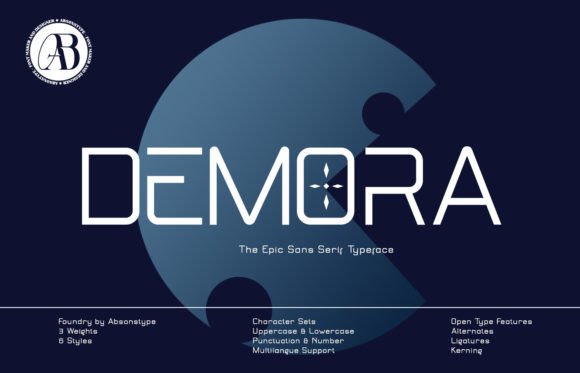
Feast your eyes upon Demora, a sans serif typeface that embodies the essence of modern aesthetics. Its sleek lines and crisp edges dance across the digital canvas with surgical precision, bringing to life a font that is both visually stunning and effortlessly readable.
Immerse yourself in a realm of science fiction and technological wonders with Demora. Its futuristic undertones evoke a sense of innovation and progress, perfectly capturing the essence of cutting-edge designs. The clean, simple lines of Demora lend themselves to a myriad of applications, making it a versatile asset for any design enthusiast.
Unleash your creativity and let Demora guide you through uncharted design frontiers. Its timeless quality ensures that your creations will endure the test of time, etching your vision into the digital landscape for generations to come.
Embrace Demora, the font that empowers you to craft designs that speak volumes. Its versatility empowers you to conquer any design challenge, from captivating headlines to intricate logos and everything in between.
Indulge in the beauty and functionality of Demora, a font that will ignite your imagination and elevate your designs to new heights. Experience the allure of modernity and the power of innovation with every stroke of this extraordinary typeface.